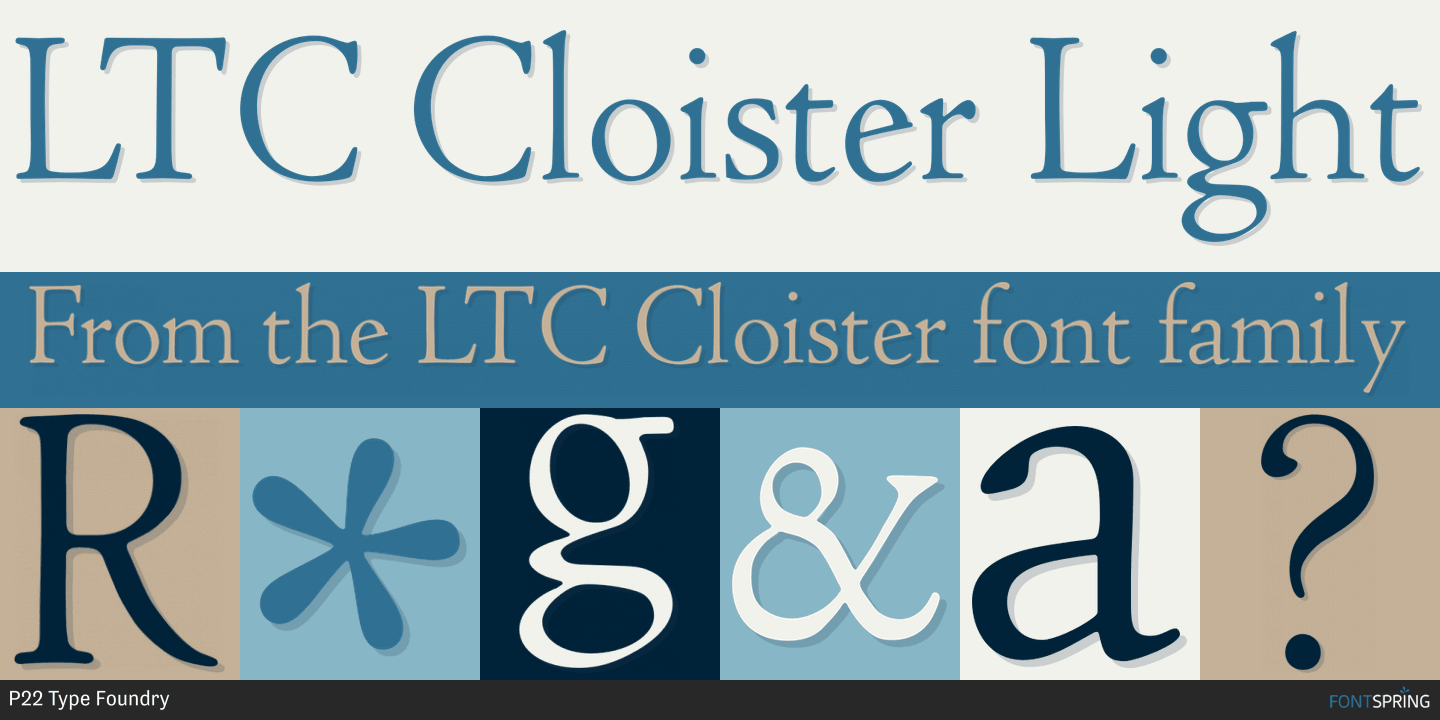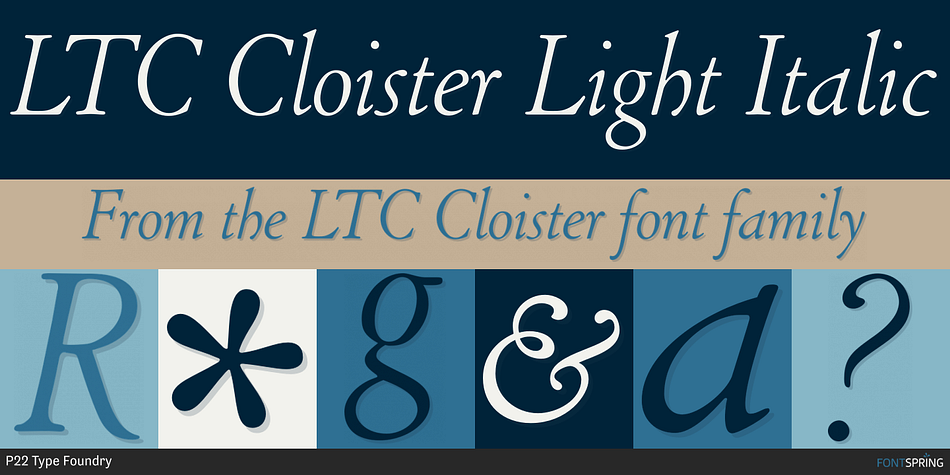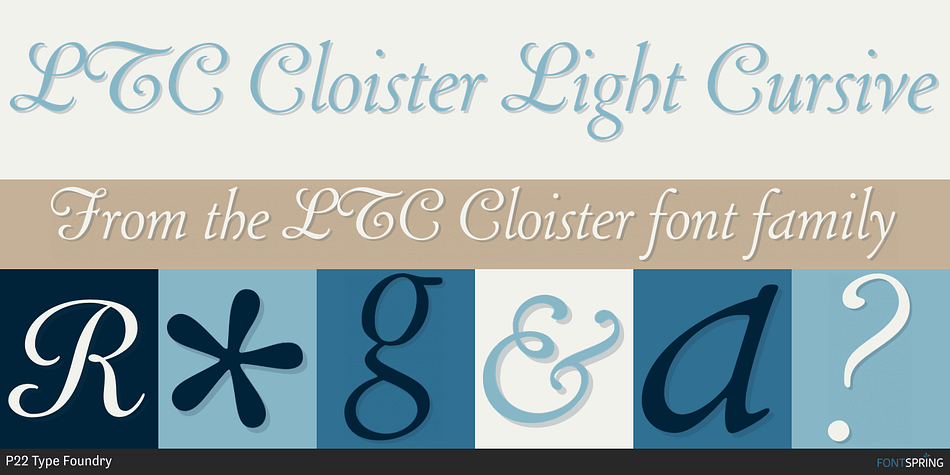
Designed by Jim Rimmer and Morris Fuller Benton, LTC Cloister is a serif font family. This typeface has five styles and was published by P22 Type Foundry.
Designed by Morris Fuller Benton 1913-15, this Oldstyle family was digitized by Jim Rimmer in the early 2000’s. It is a roman face closely styled to that of Nicholas Jensen’s with a companion italic in the style of Aldus Manutius. Benton considered Cloister the ideal typeface and it does indeed lend itself to many uses. The digital versions were redrawn by Jim Rimmer. New Cursive versions added in 2006.